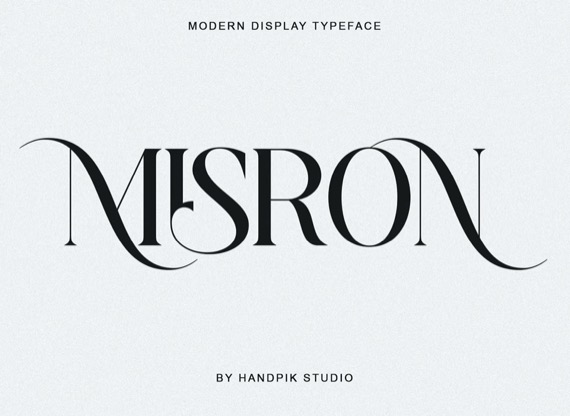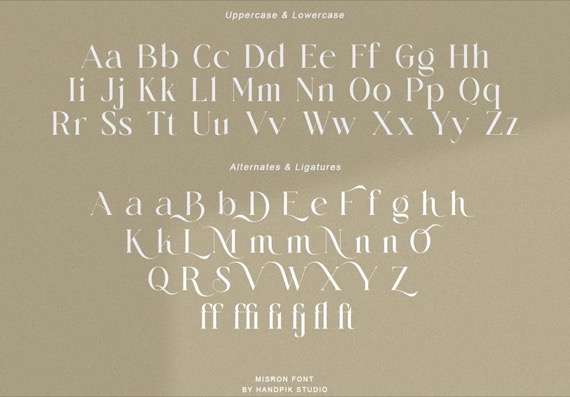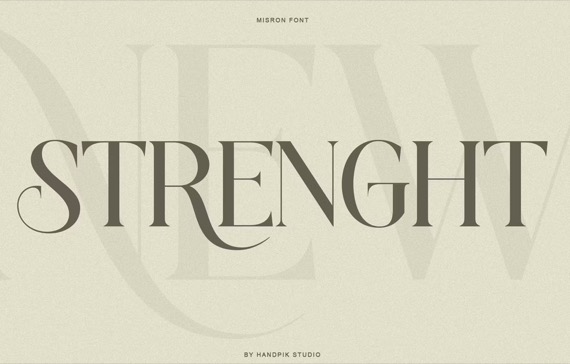
Introducing a classy and new fresh serif font, Misron will be perfect for many projects: books, magazines, logo, branding, photography, quotes, blog header, poster, advertisements, etc.
Misron Serif Font